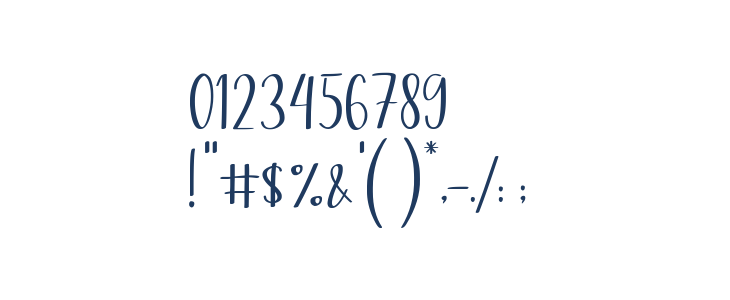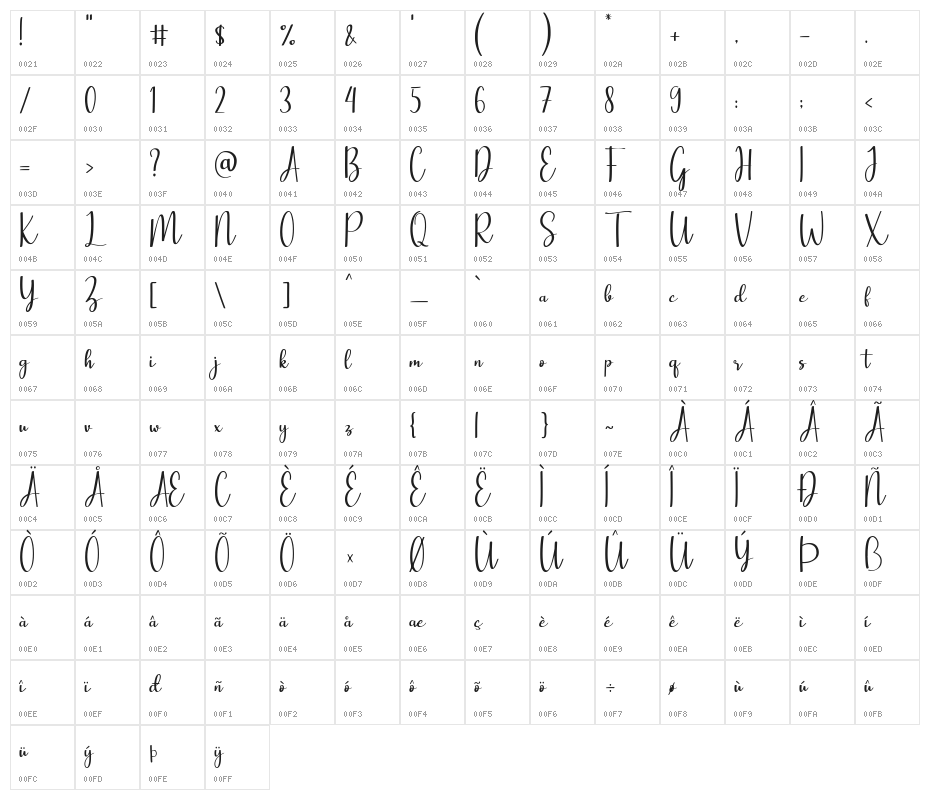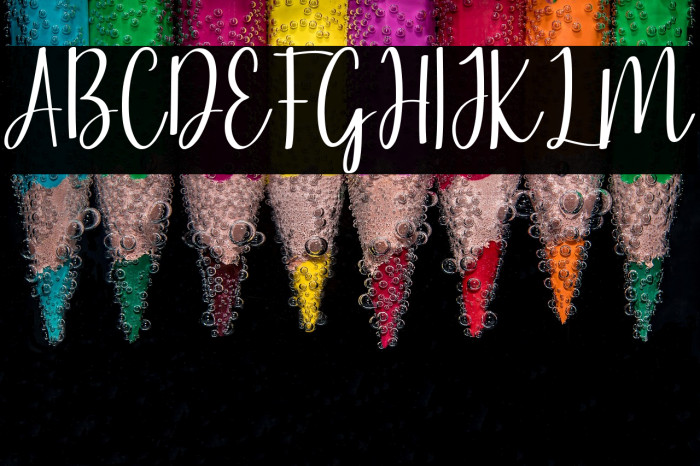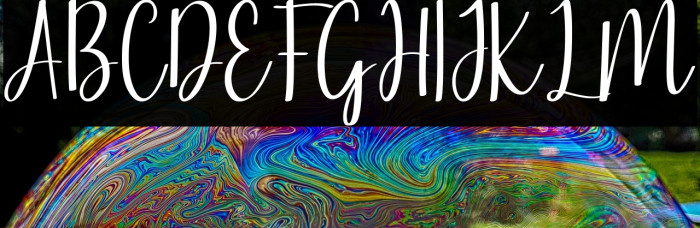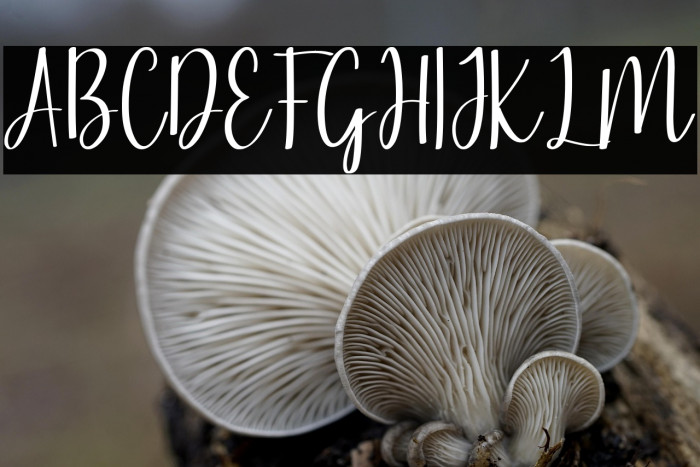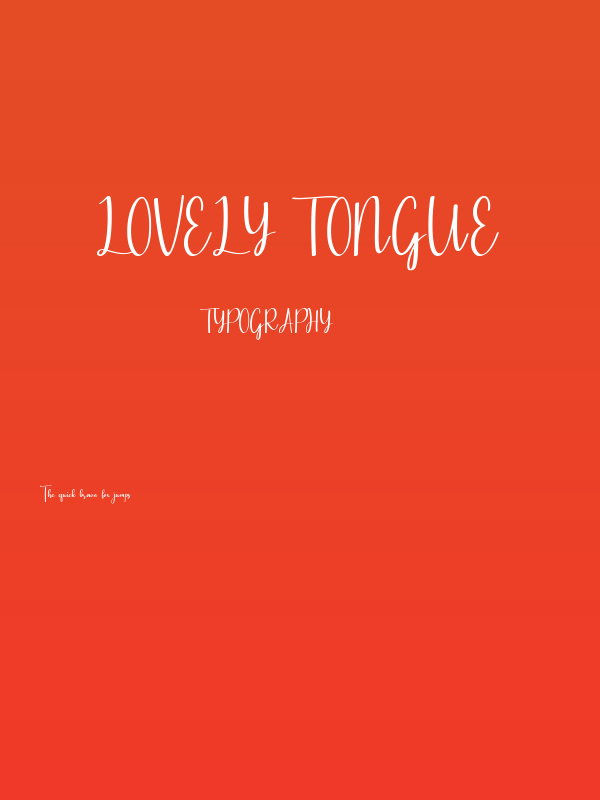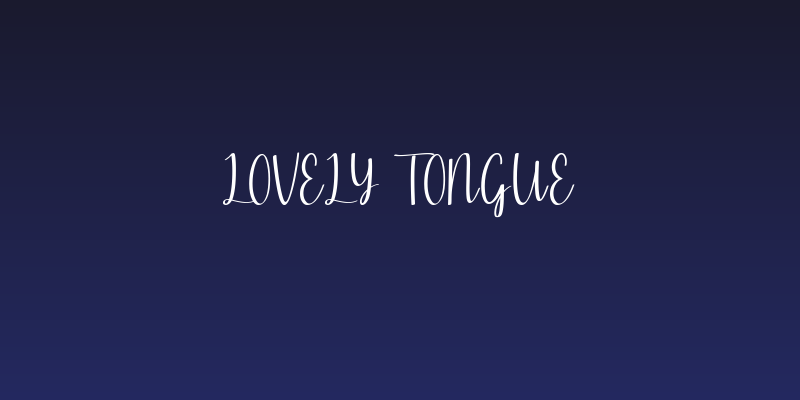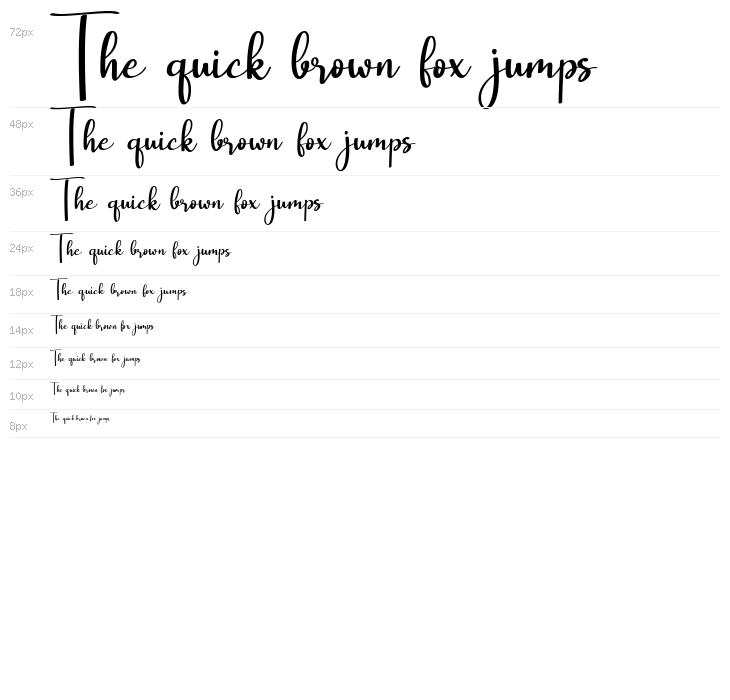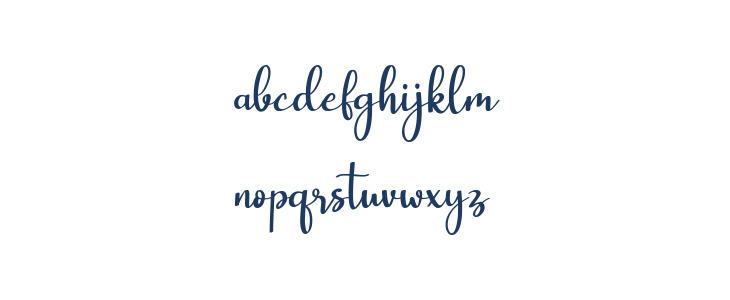
lovely tongue Font
lovely tongue Description
This font features a playful and elegant handwritten style, characterized by its flowing, cursive letterforms. The uppercase letters are tall and graceful, with a slight slant that adds a dynamic feel. The lowercase letters maintain a consistent flow, with smooth curves and loops that enhance its handwritten appeal. Numbers are clear and legible, maintaining the same stylistic flair. Special characters are thoughtfully designed to match the overall aesthetic, making this font versatile for various creative applications. Its overall appearance is both sophisticated and approachable, making it suitable for a wide range of design projects.
| Proposed Projects | Ideal for wedding invitations, greeting cards, branding, and social media graphics. |